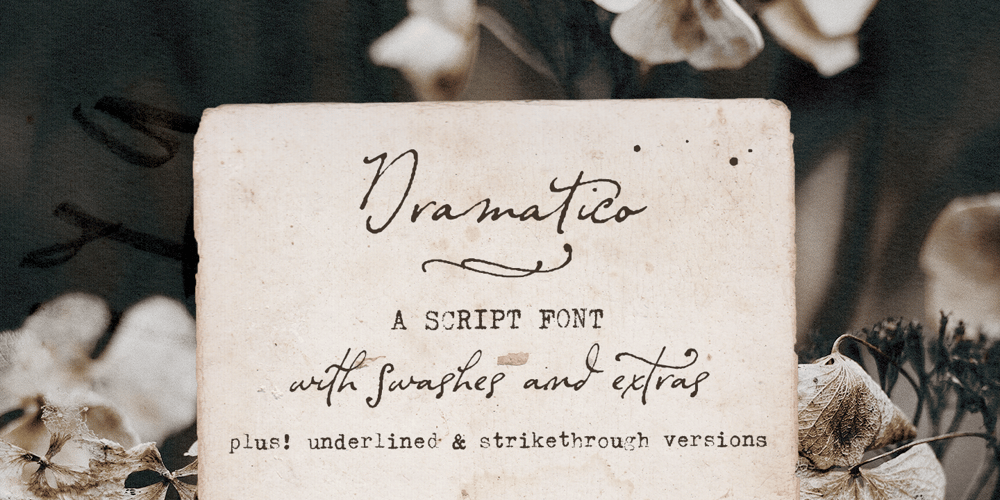
Dramatico Script
Dramatico Script font
Dramatico Script Font Family was designed by Ana Parracho and published by Ana’s Fonts. Dramatico Script contains 5 styles and family package options. Dramatico is a script font family inspired by vintage handwritten postcards and notes. Perfect for any design that needs a vintage calligraphy look, Dramatico was handmade using a real dip pen and ink. Use it in signatures and logos, notes and quotes, social media posts, and branding and packaging.Dramatico includes: Ligatures for a more natural text Swashes for most of the lower-case letters A set of ornaments to decorate your text A set of extras (lines, scribbles, arrows, splatters, etc) to add a grungier look to your vintage designs Bonus! Underlined and Strikethrough versions of the script font